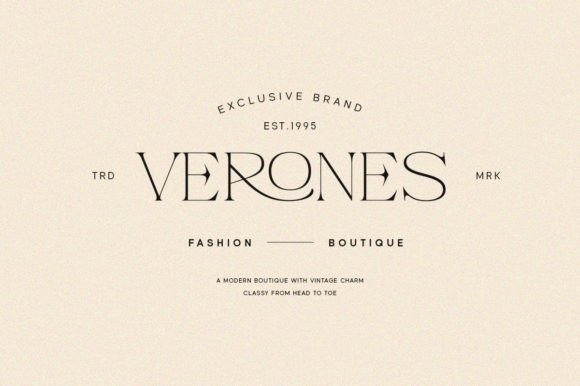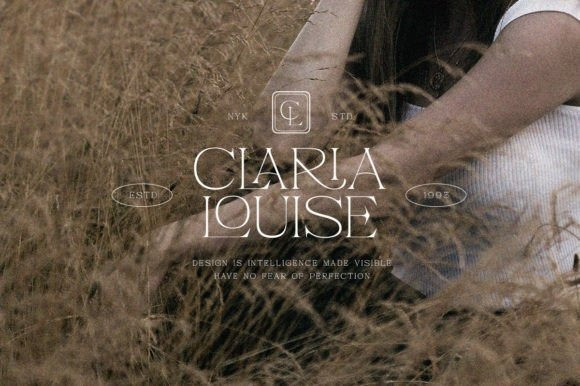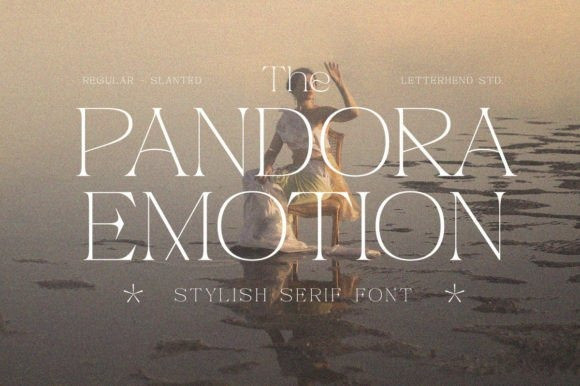
Pandora Emotion Font
Pandora Emotion Serif Font is a classy and stylish serif font. Its glamorous and luxurious vibe is great for creating unique, feminine designs. Masterfully designed to become a true favorite, this font has the potential to bring each of your creative ideas to the highest level!